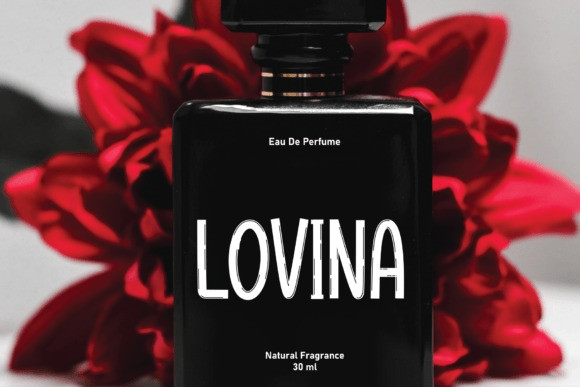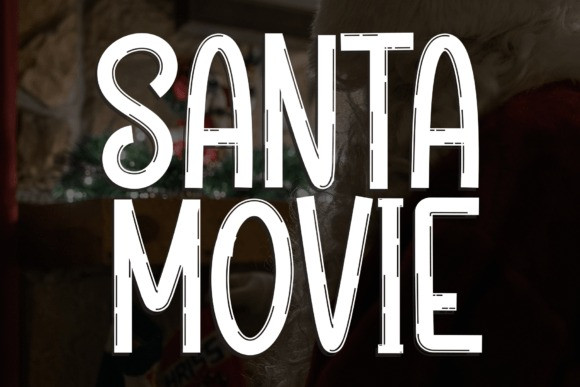
Santa Movie Font
Santa Movie Font is a sweet and friendly handwritten font. Fun and cute, this font is ideal for writing wedding invitations, cards, or any other design that might need a friendly touch!